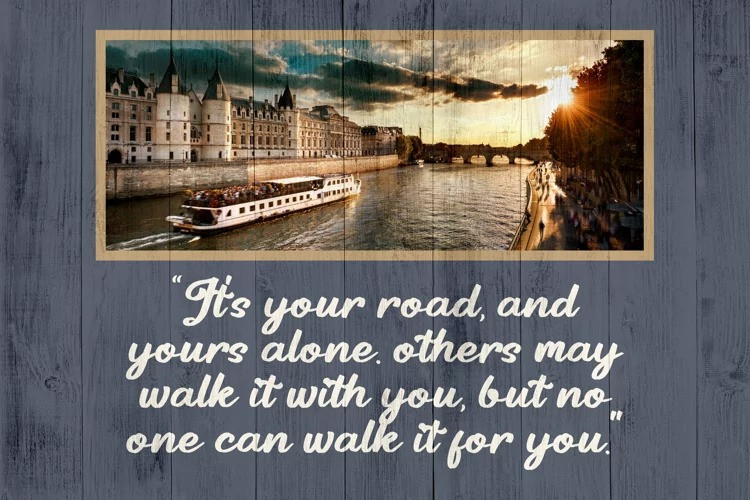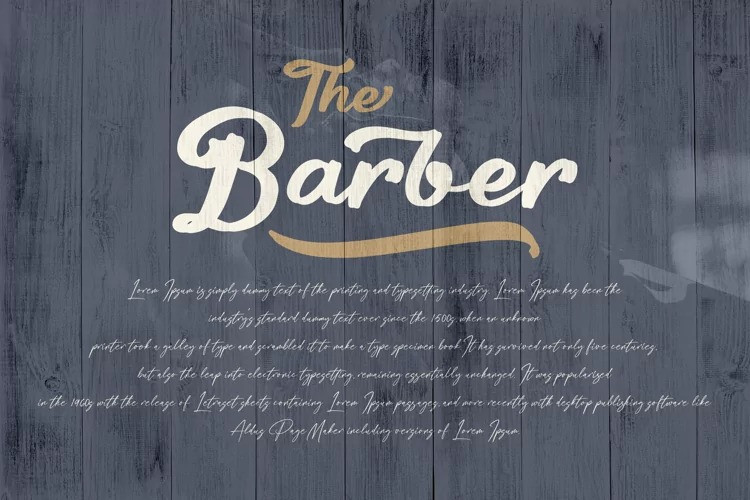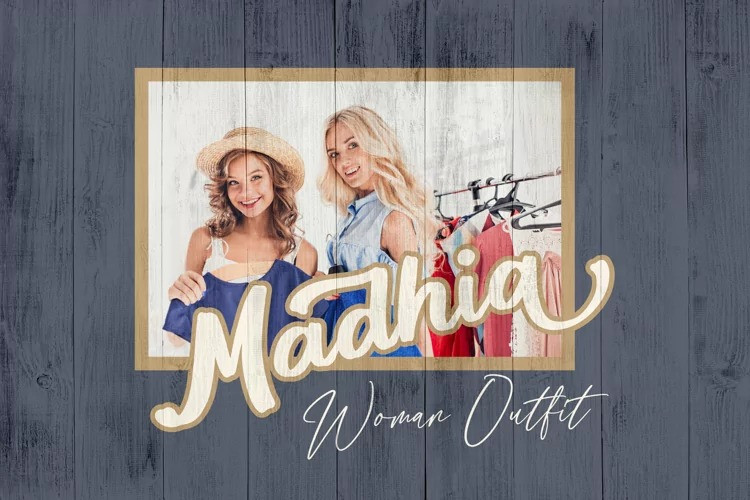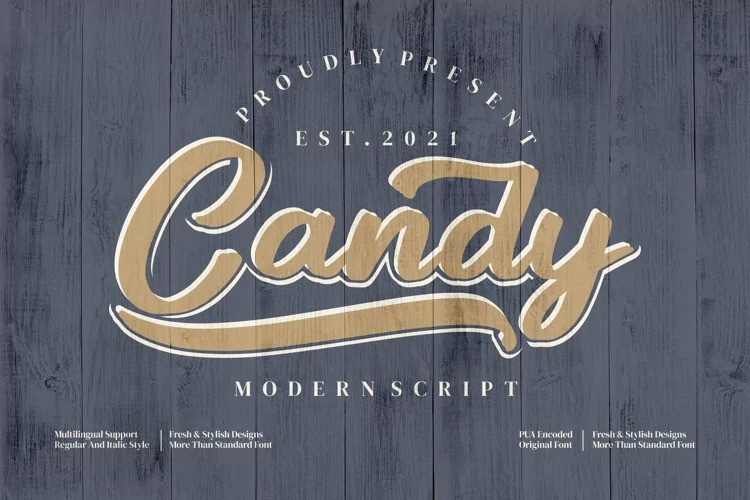
Candy Brush Font is a beautiful calligraphic script typeface crafted & designed by Integritype Studio, suitable for any projects such as: logos, branding projects, homeware designs, product packaging, mugs, quotes, posters, shopping bags, t-shirts, book covers, name card, invitation cards, greeting cards, label, photography, watermark, special events, and all your other luxury projects that need a premium signature taste.